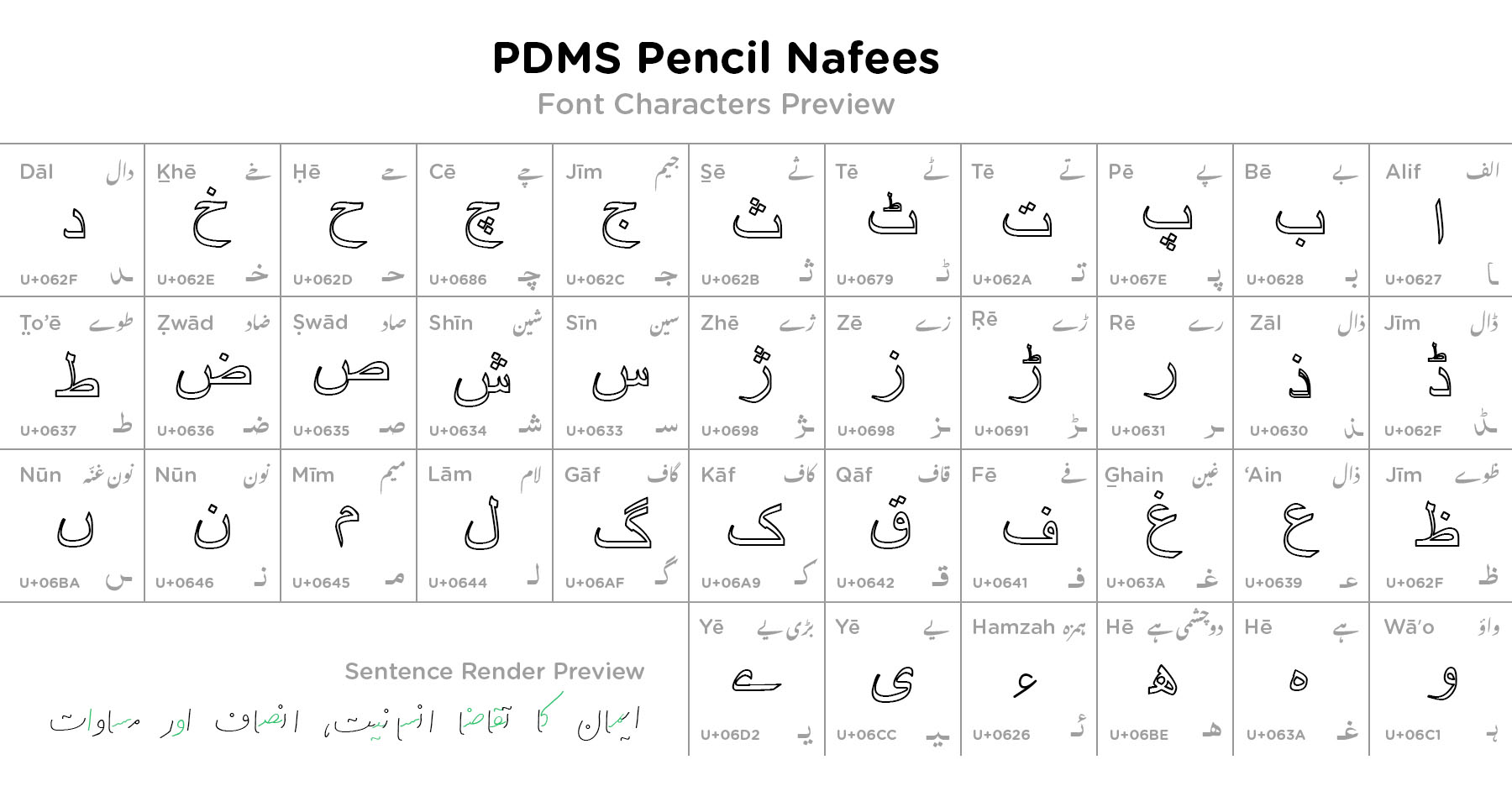
PDMS PencilNafees is an Urdu font intended for graphic design and publishing. The creator of this OpenType (TTF-flavoured) Urdu Nastaliq typeface is Pakistan Data Management Services' Kashif Hisam. PDMS PencilNafees is a handwritten Urdu typeface with a distinct design giving the feel of handwritten text specifically with pencil, as its name suggests. It is based on the historic Nastaliq script, which is normally used for writing Persian, Arabic, and Urdu. It has a character set of 350 letters and symbols with a glyph count of 485 and support for Urdu and Latin. It is a relatively thin font with smooth curves and edges. What gives this font a natural feel is its varying space among letters and irregular strokes; however, the thickness throughout is static. It is highly readable but still has very little usability often used for design purposes rather than writing.